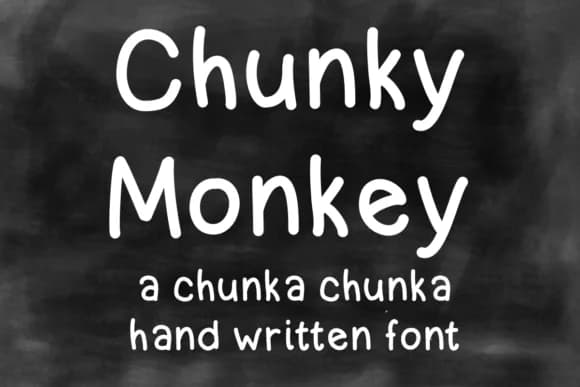
Chunky Money Font by ashley_lynne18 is a hand-lettered script built on bold, rounded letterforms that command immediate attention without sacrificing genuine warmth or charm. The thick strokes and funky personality deliver authentic character to designs that need to feel personal and direct rather than formally polished or overly refined.
This typeface performs strongest on gift tag designs, greeting card headlines, and custom product packaging labels where a handmade aesthetic truly resonates with your audience. You'll find it equally useful for social media graphics promoting small product brands, scrapbooking layouts with vintage flair, and merchandise designs meant to appeal to craft enthusiasts and creative communities. Across different sizes, these letterforms stay legible and functional, so you can feel confident tackling large format signage or intricate small-scale details alike.
What makes this font genuinely work is the honest balance between visual punch and functional clarity. It expresses personality strongly enough to anchor an entire design by itself, yet cooperates gracefully with minimal supporting elements when you need restraint or balance. The hand-lettered quality never feels forced or overwrought. Grab Chunky Money on Creative Fabrica and start putting it to work on your next project.
Chunky Money Font is a script font that shines as a display or heading face. Pair it with a clean sans-serif or serif font for body text β the contrast creates a clear hierarchy while the two styles stay balanced and easy to read.
Chunky Money Font